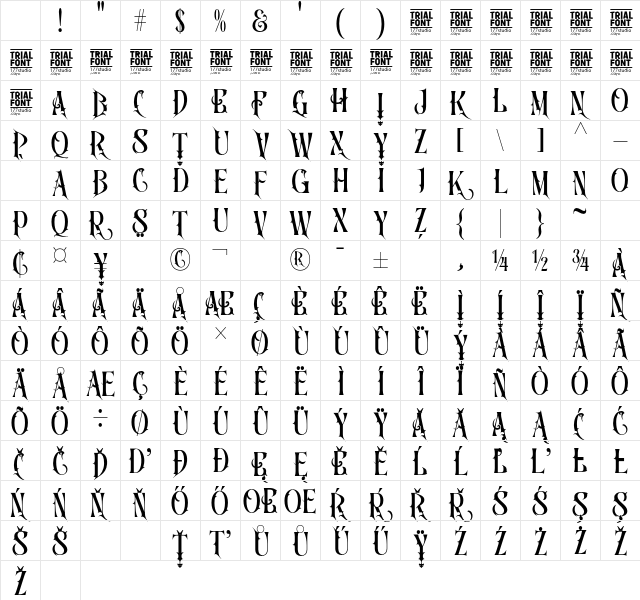
Traditional Challenges Demo is a composed and adaptable typeface that performs quietly and consistently across a wide range of design contexts.
Pro Tip: Use Traditional Challenges Demo in both headline and body roles to test its range before committing to a single application.